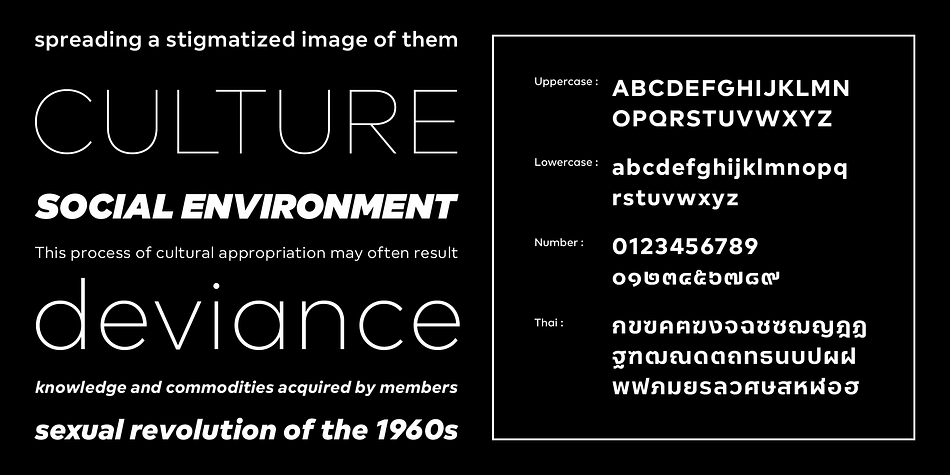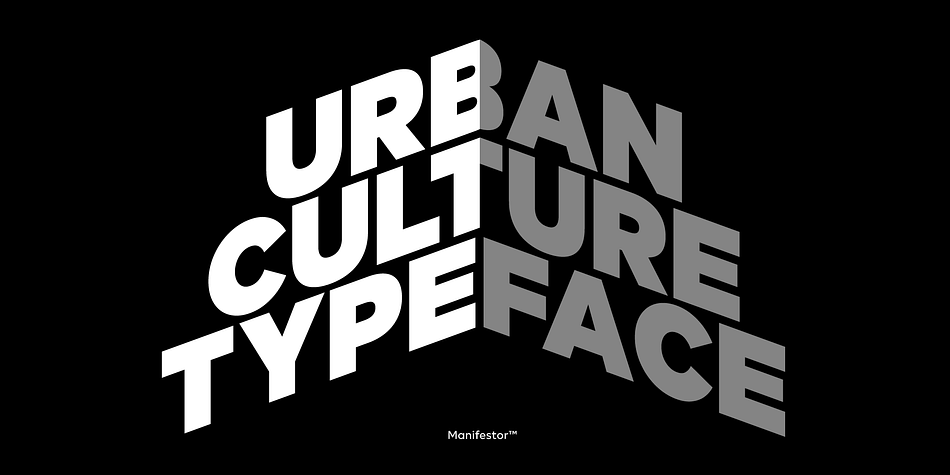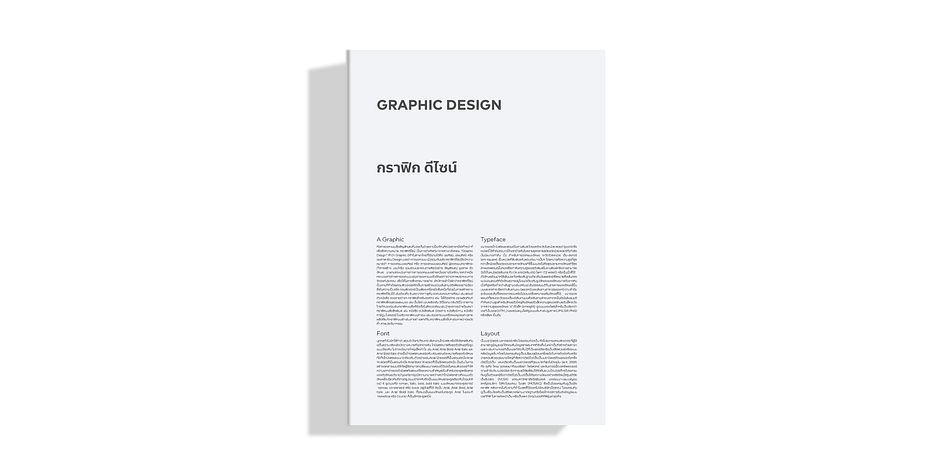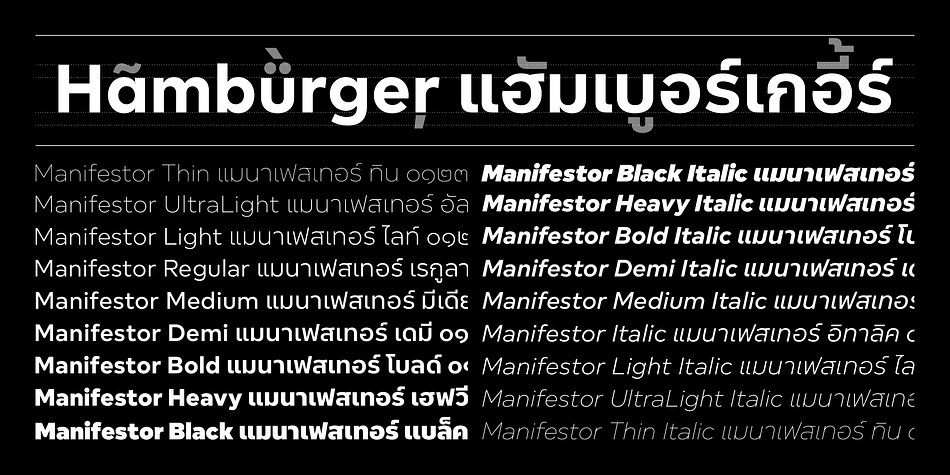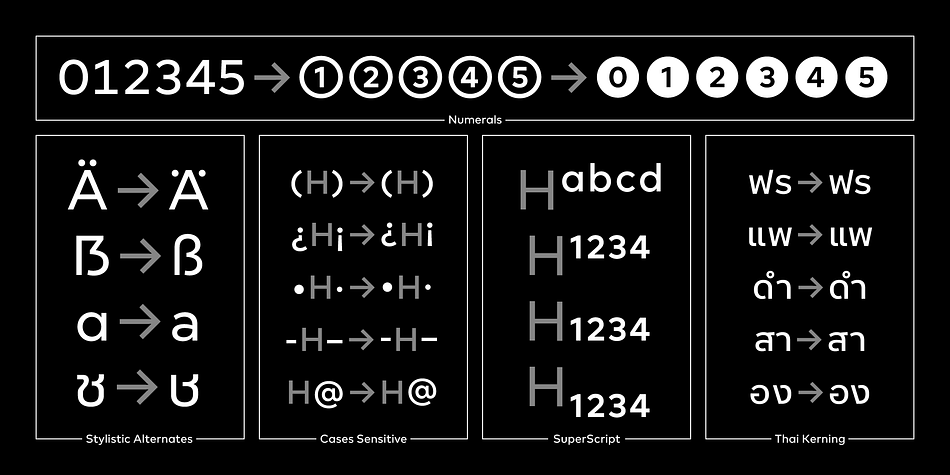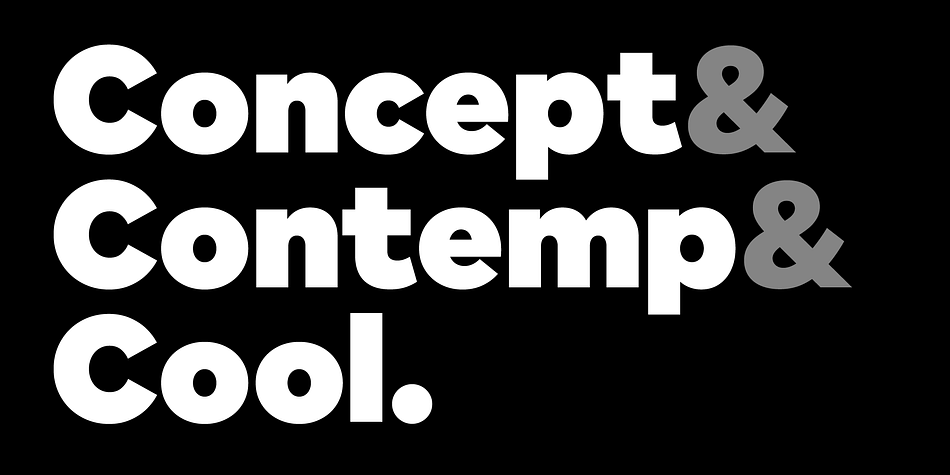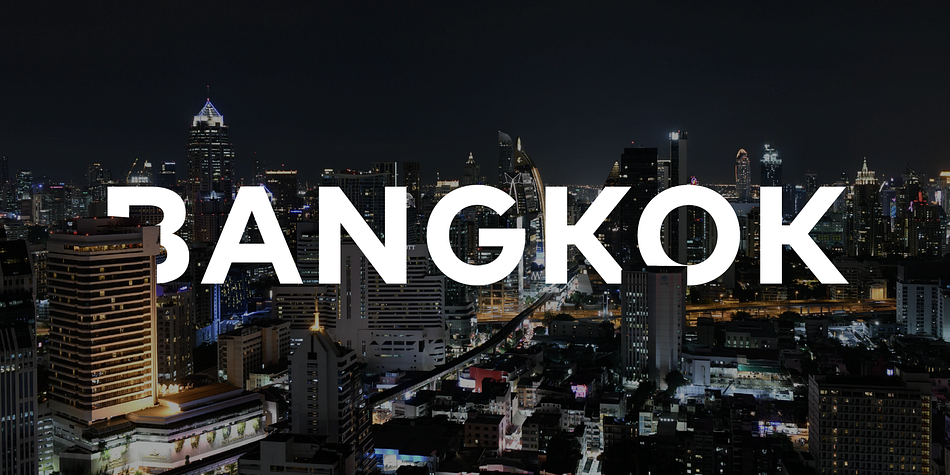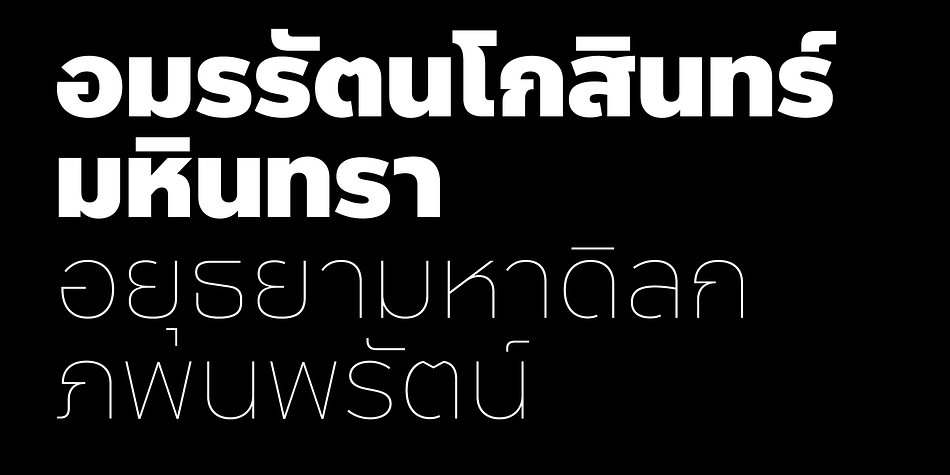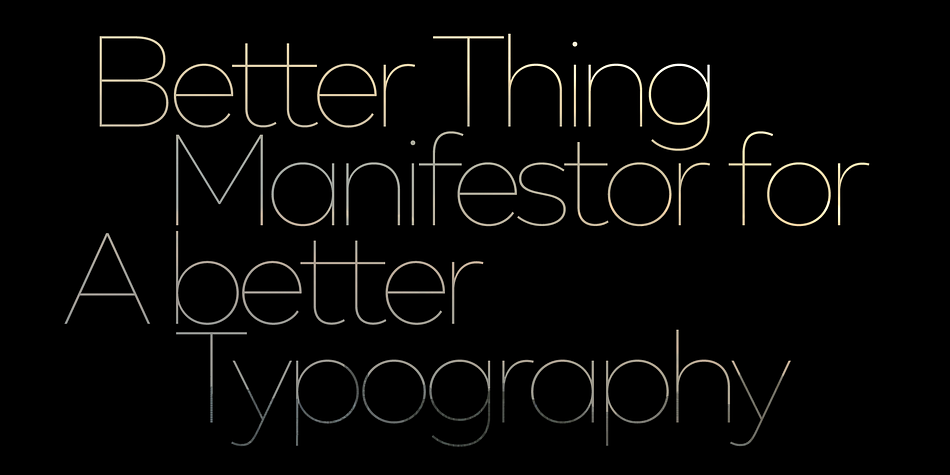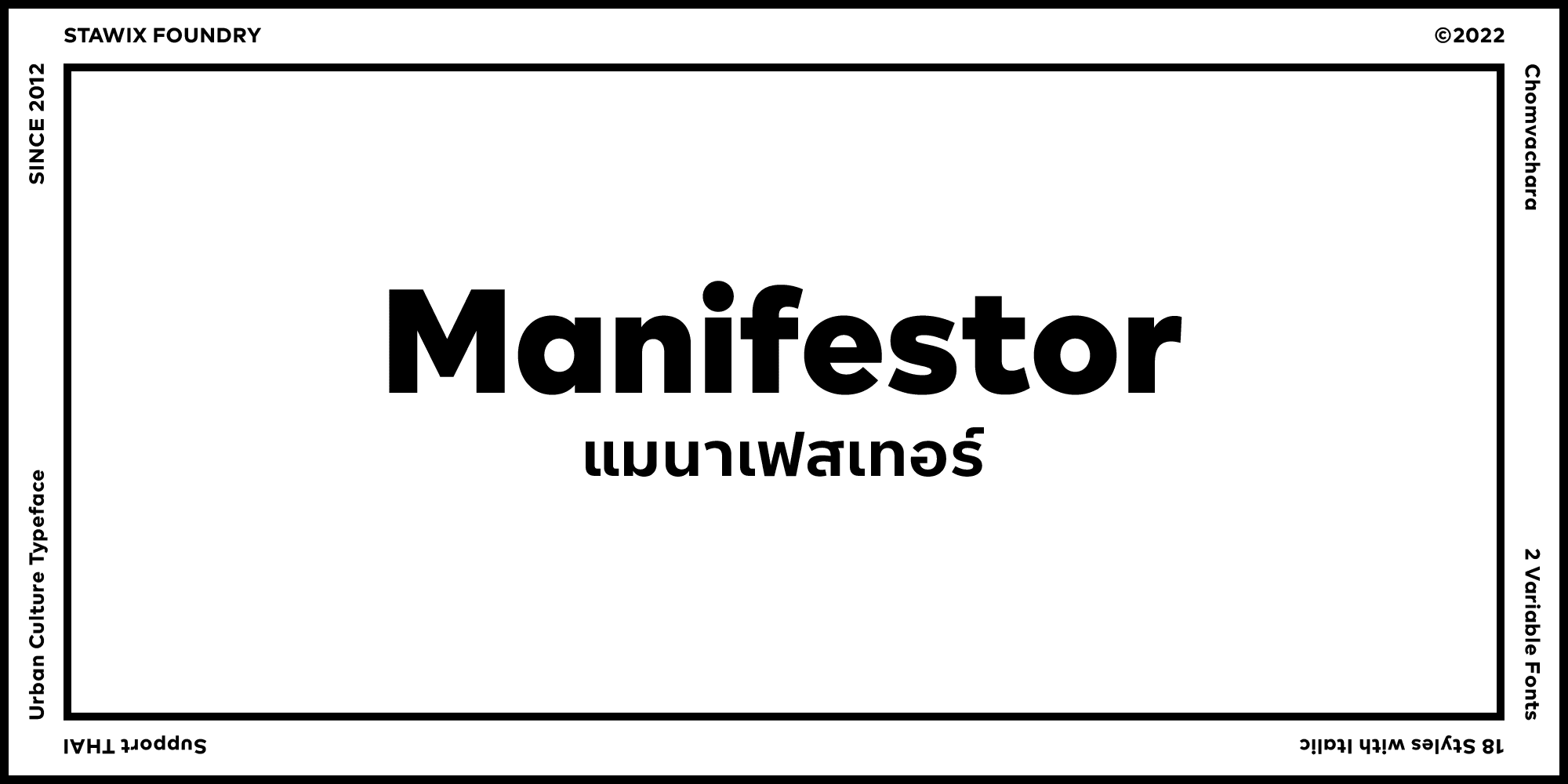
Manifestor
Designed by Stawix Ruecha, Manifestor is a sans serif font family. This typeface has twenty styles and was published by Stawix.
Manifestor is designed to be an urban culture typeface, it can effortlessly fit, blend and be in very situation at any time without taking up too much attention. It has a clean san-serif structure and proportion, kind to the eyes when set in texts while also look reliable when use in big scale. Manifestor has the simple - easy - comfortable feature, therefore it is a type appropriate for a very wide range of occasion. Manifestor also comes in Variable!